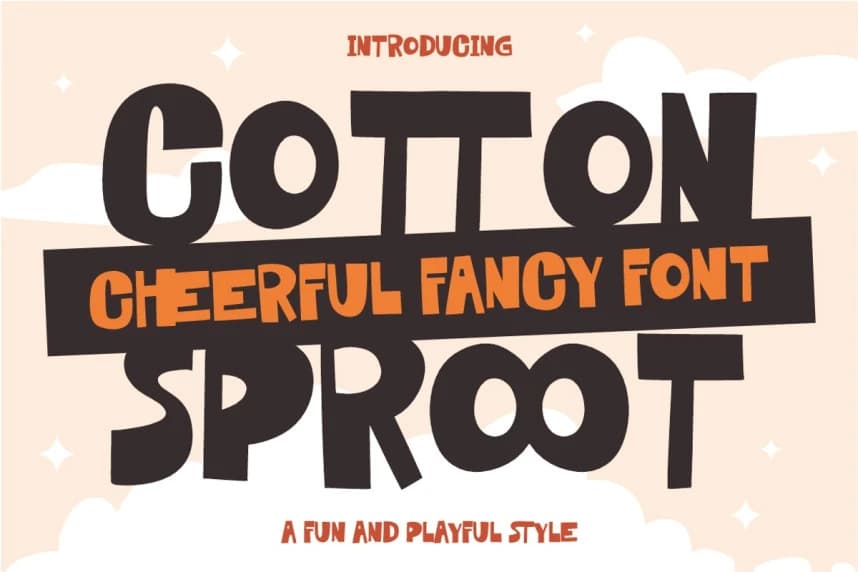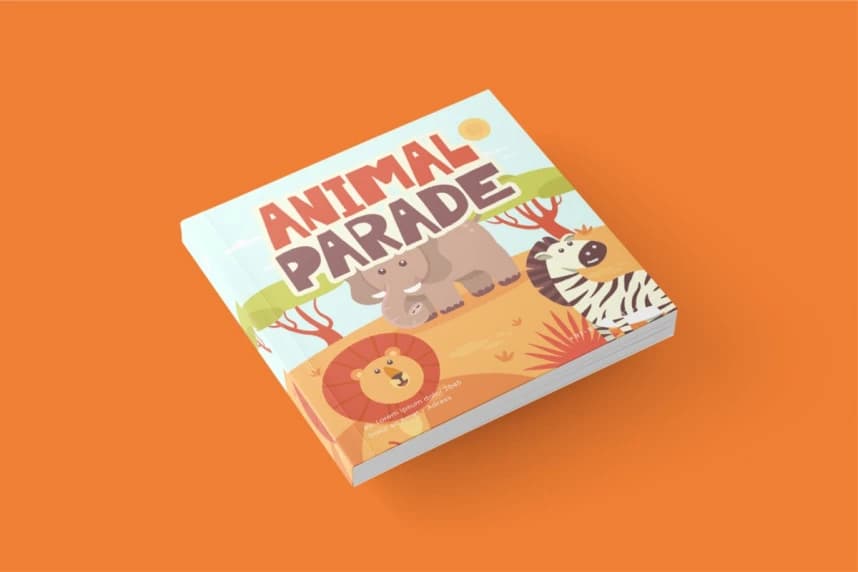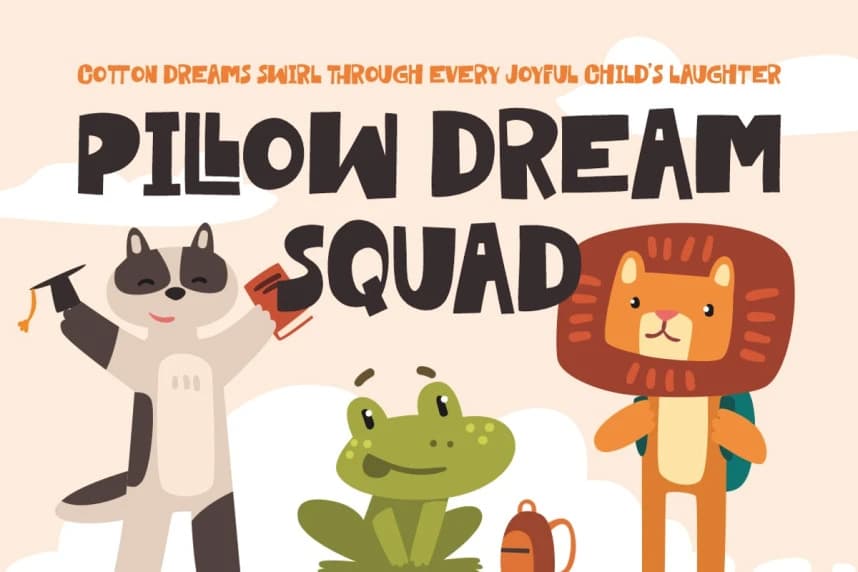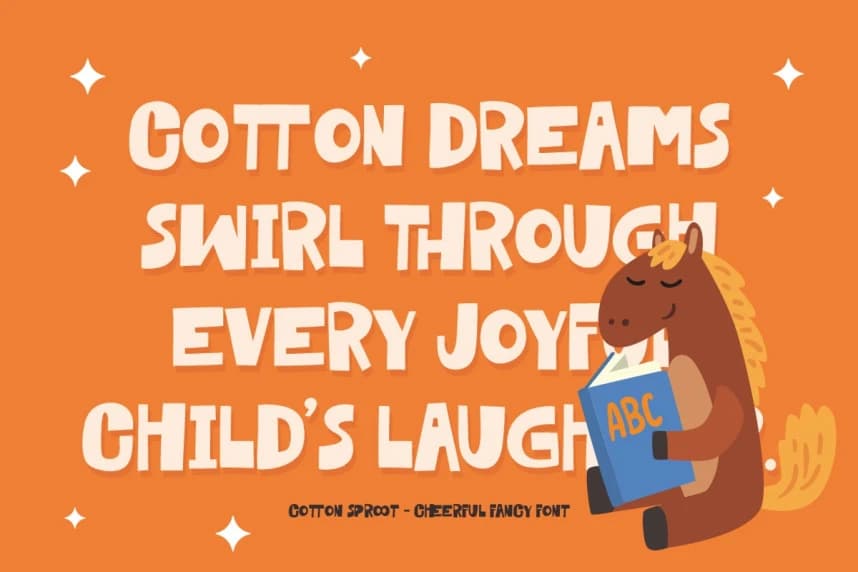
Cotton Sproot Font
Cotton Sproot Font is a cheerful and playful fancy font that brings energy, joy, and childlike wonder to any design. Its thick, bubbly strokes and slightly wobbly shapes create a spontaneous charm—perfect for early-age education, children’s books